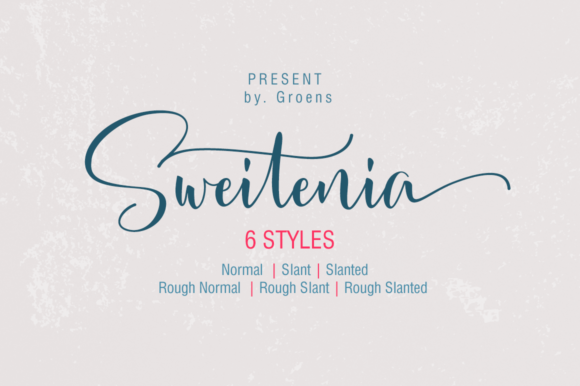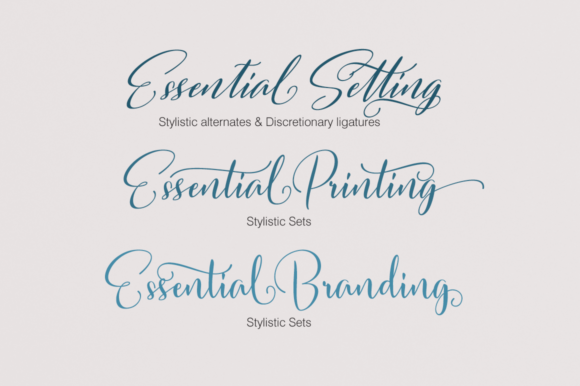
About Sweitenia Font
Sweitenia is an elegant script font. Not too thin and not too thick, balanced and varied, this font was designed to enhance the beauty of your projects.